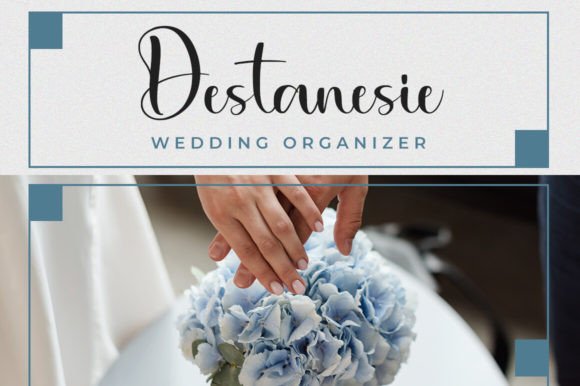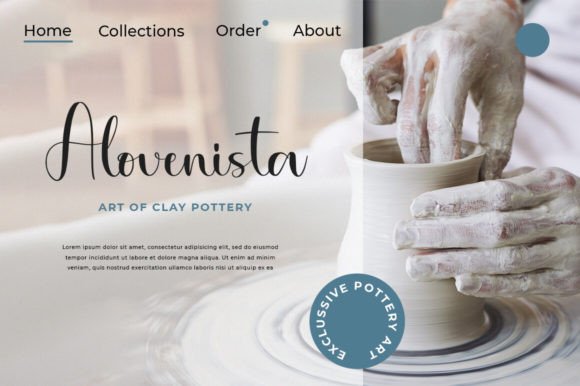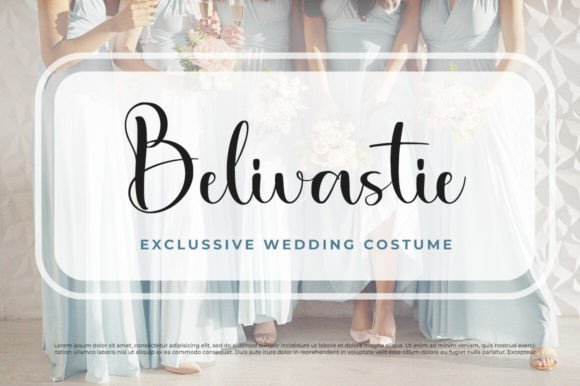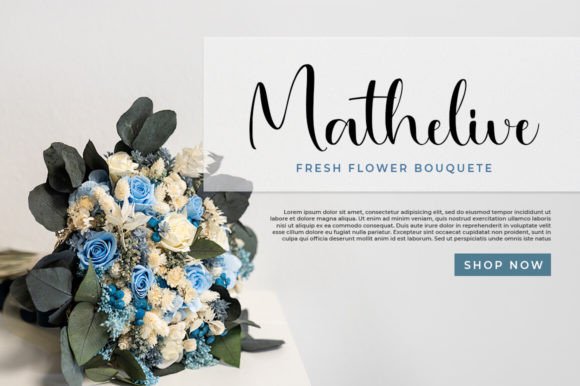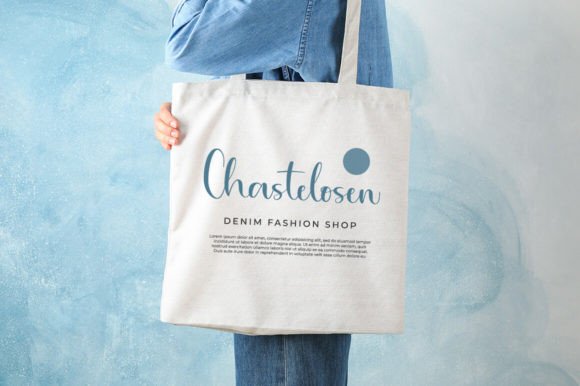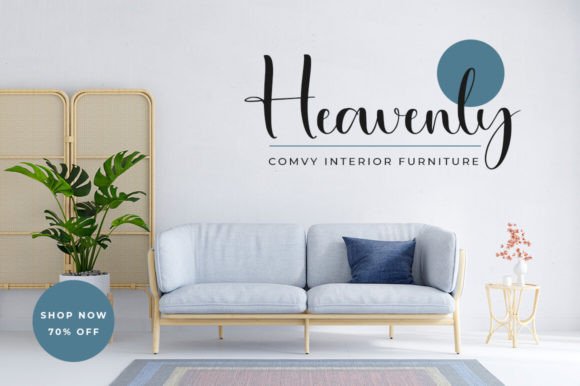
Introduction to Javelina Font
Have you ever found yourself staring at a blank page, struggling to bring your creative vision to life? You’ve got a concept, but the perfect words and font just seem to be missing. This is where the magic of a well-designed font comes in – and that’s exactly what we’re excited to introduce you to: the Javelina Font. This gorgeous script font is the perfect design resource for any creative project that needs a touch of handwritten elegance.
With its high-quality design and transparent background, the Javelina Font is a valuable asset for designers looking to elevate their work. Whether you’re creating a logo, invitation, or social media post, this versatile font is sure to bring a personal touch to your project. And the best part? It’s available for a free download, making it an accessible and affordable design resource for creatives of all levels.
Honest Review: Javelina Font
I recently had the chance to work with the Javelina Font, and I must say it’s been a game-changer for my creative project. The high-quality design and sleek style make it perfect for any professional or personal project.
What works well: ✨ The font is incredibly versatile and can be used for a variety of purposes, from titles and headings to body text. The transparent background option is also a huge plus, allowing for seamless integration with any design. The free download option is another major plus, making it accessible to designers of all levels.
What doesn’t: ⚠️ While the font is high-quality, it can be a bit tricky to work with in certain software. I experienced some issues with compatibility in Adobe Illustrator, but overall, it’s a minor complaint.
Overall, I’m thoroughly impressed with the Javelina Font. It’s a valuable design resource that can elevate any creative project. The high-quality design and versatility make it a must-have for any serious designer. If you’re looking for a reliable and stylish font, look no further than the Javelina Font.
To get the most out of Javelina Font, use it for headings and titles to create a visually appealing design. Experiment with different font sizes and colors to enhance the overall aesthetic of your project.
Javelina Font is suitable for various creative projects, including branding, marketing materials, and digital media. Its high-quality typography makes it an excellent design resource for professionals and hobbyists alike.